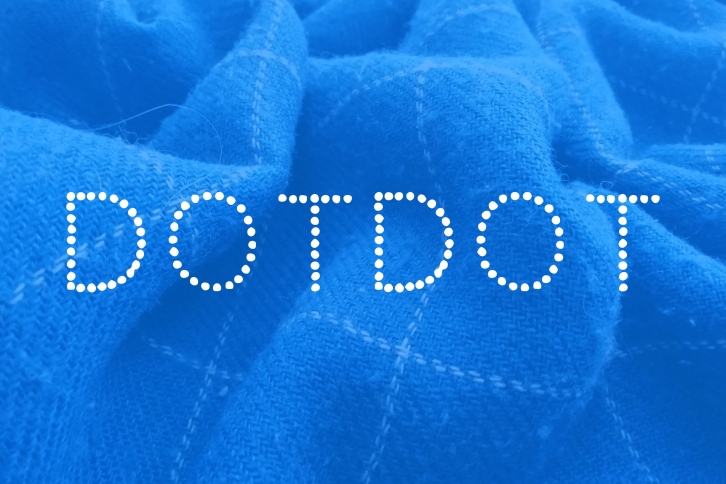
Dotdot handwritten in ttf, otf is a beautiful font that was designed by Croutons. It's a great choice for designers and creatives who need such a font. It was released on March 29, 2021 and the file size is 9.51 MB. Dotdot handwritten in ttf, otf may give a more youthful, expressive and casual look to your project. It is a very beautiful, refined, elegant, and high-quality font.